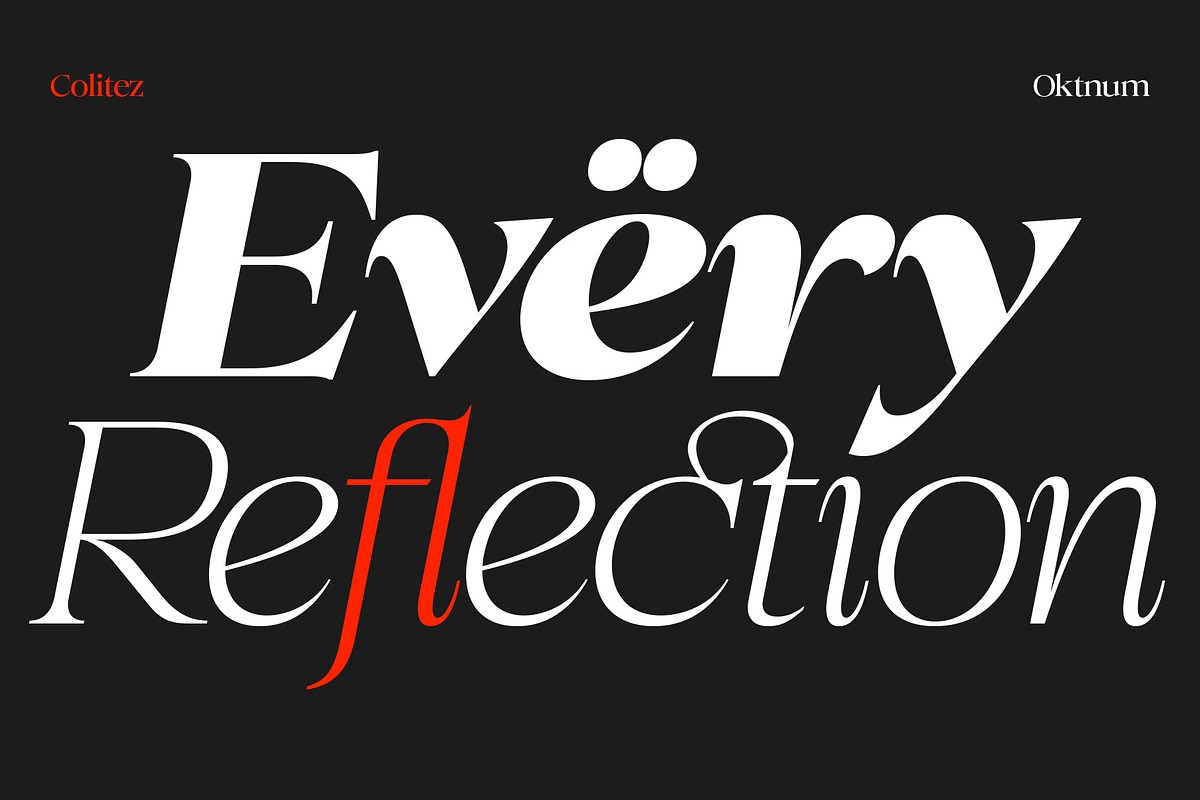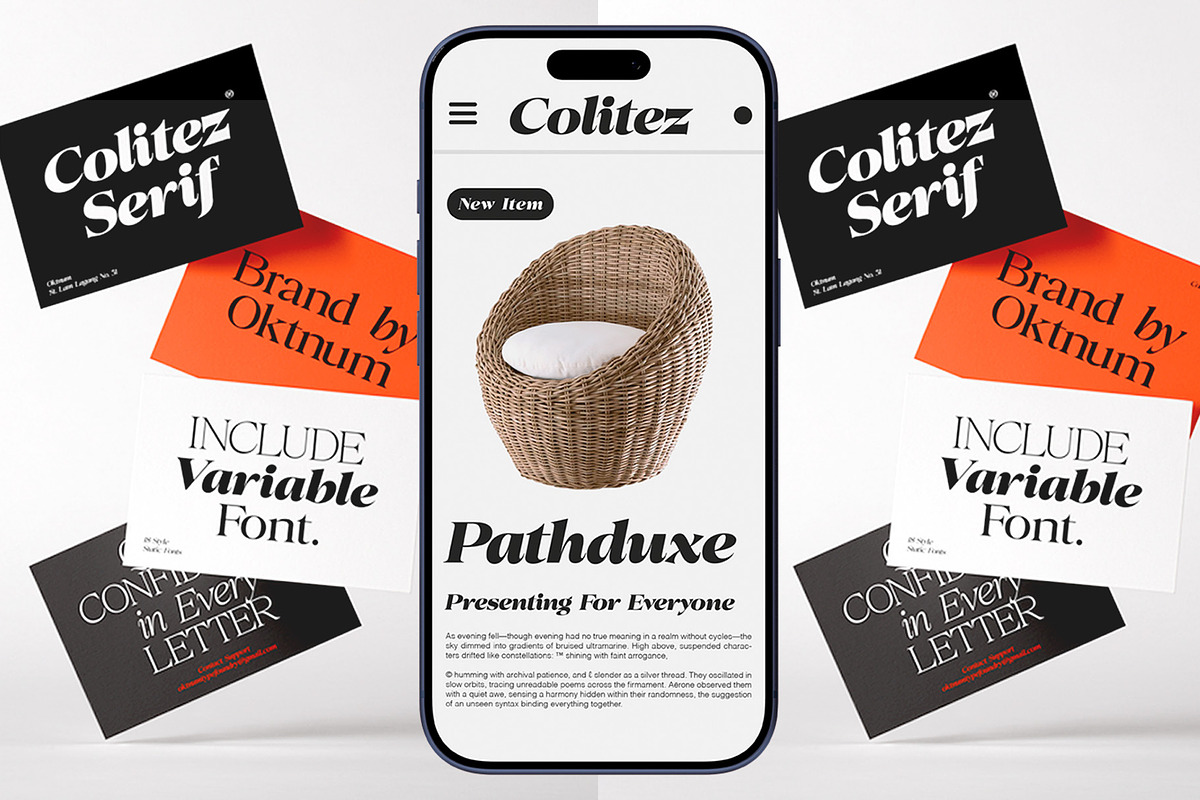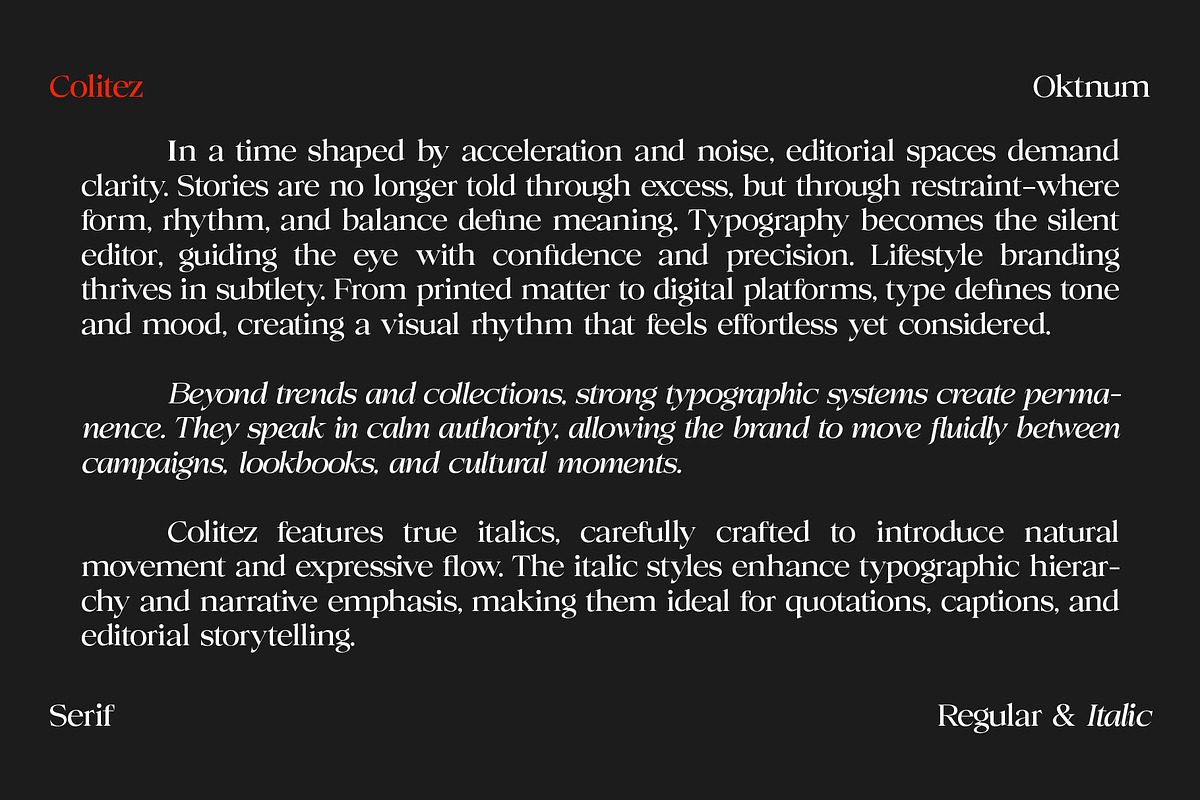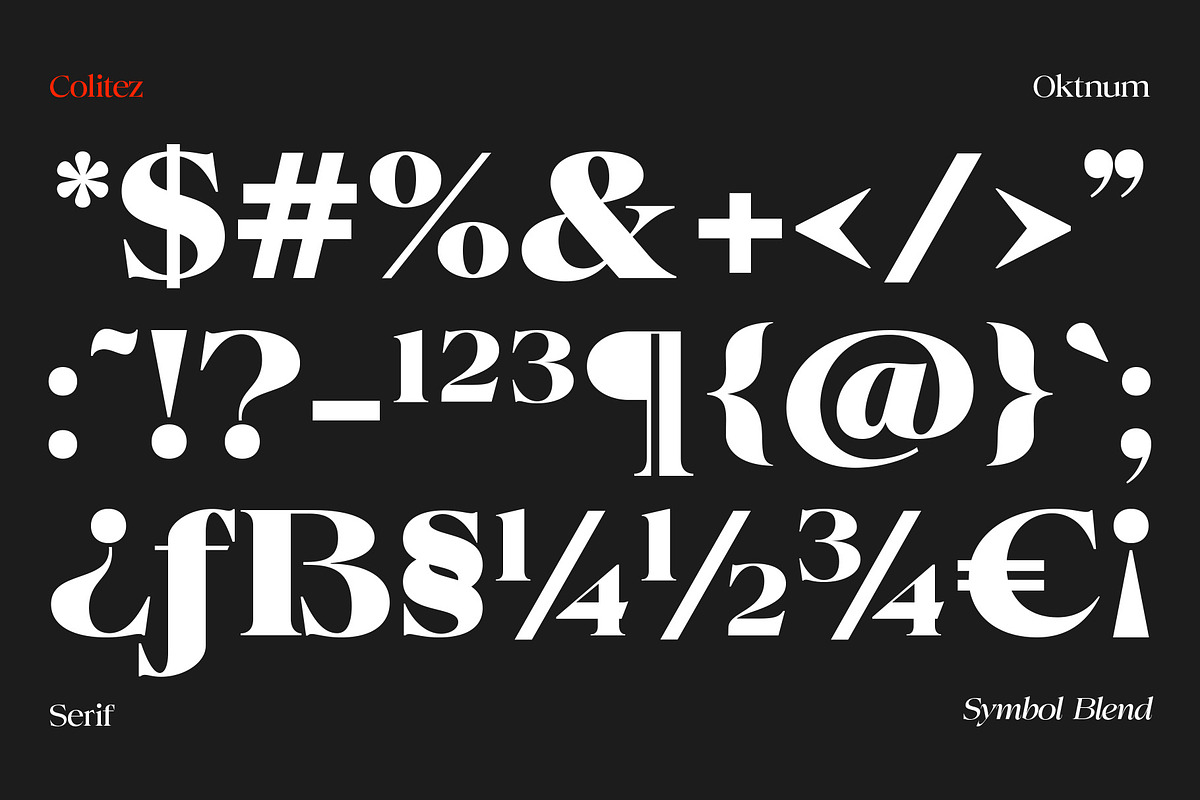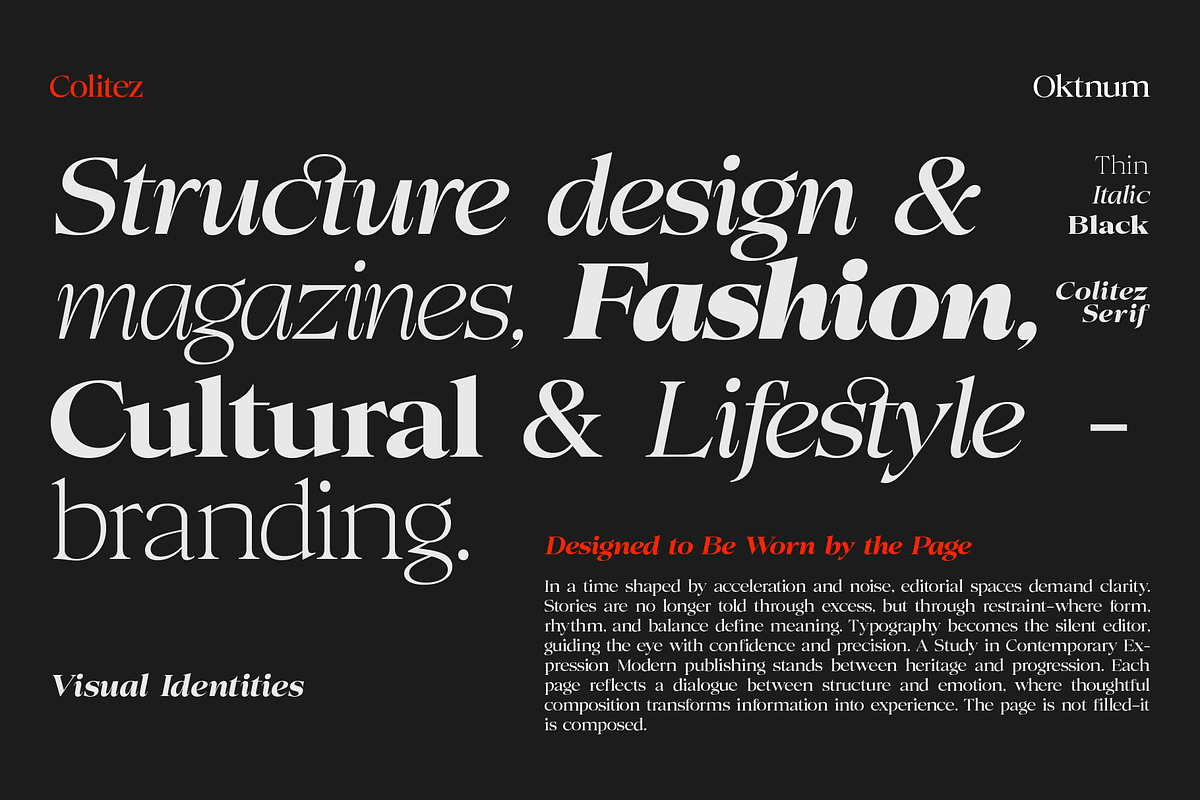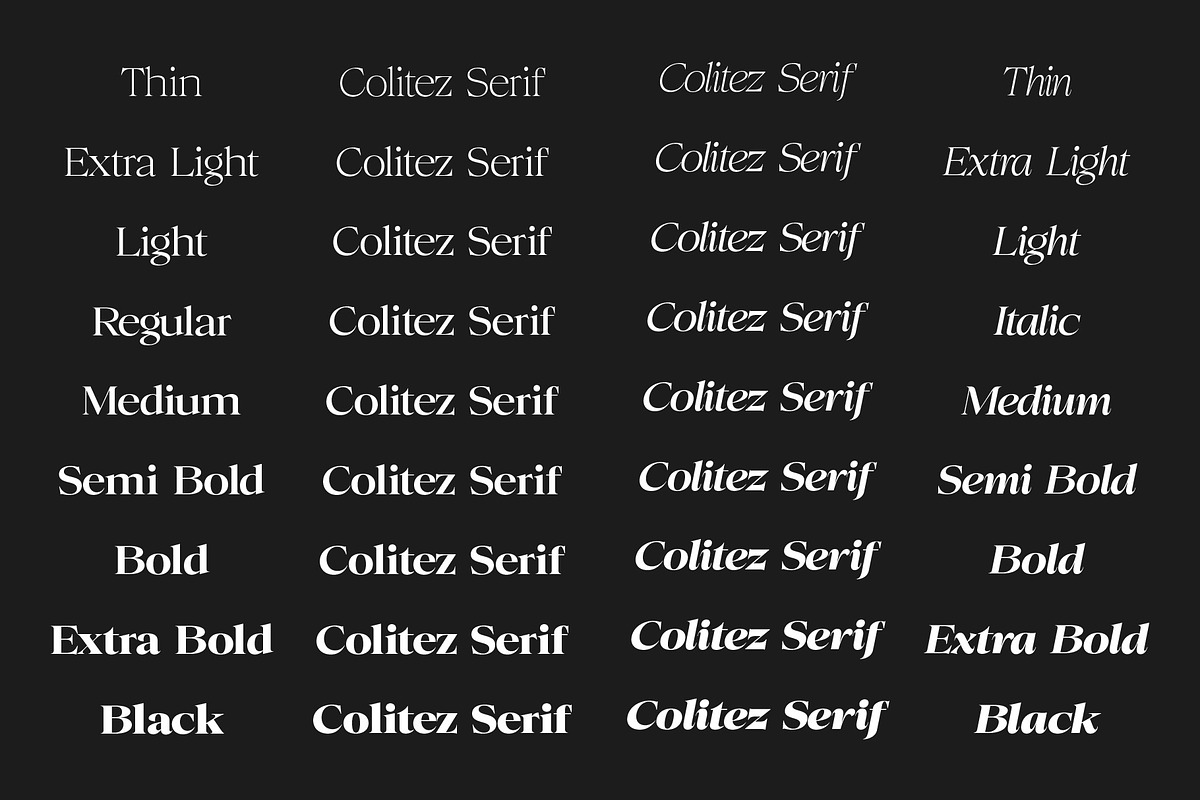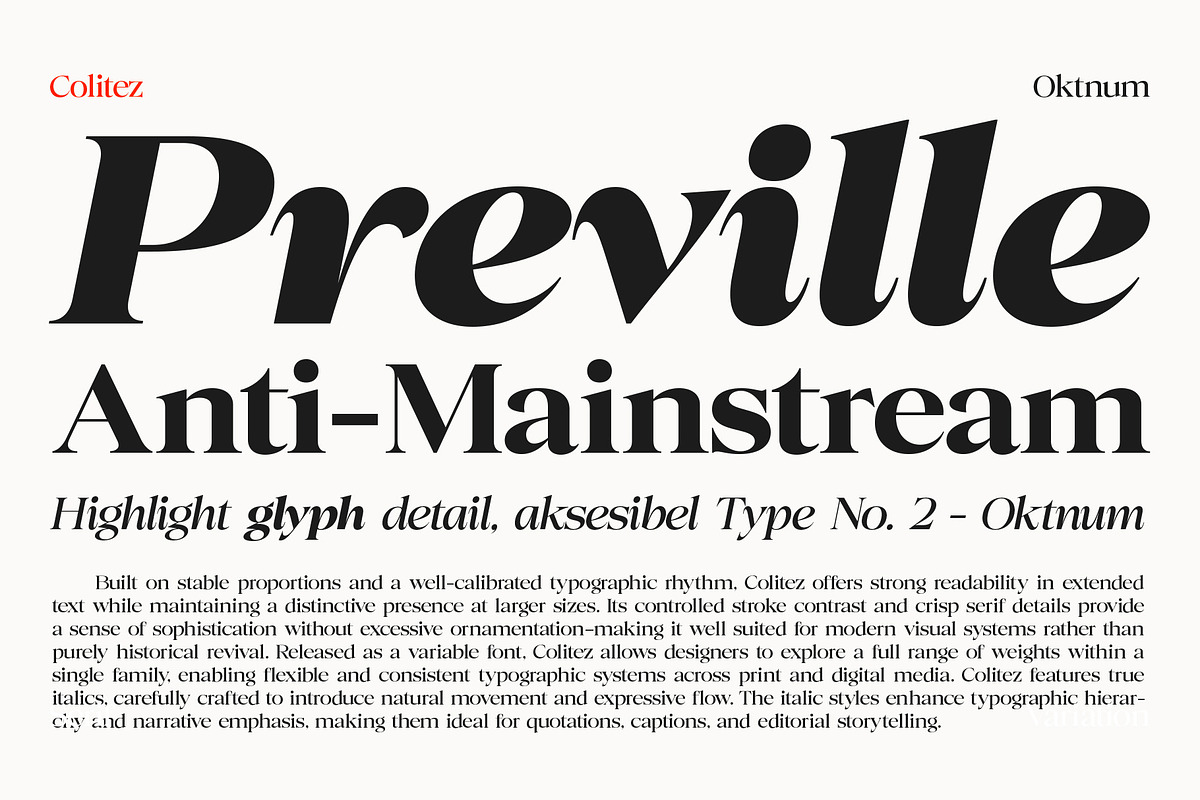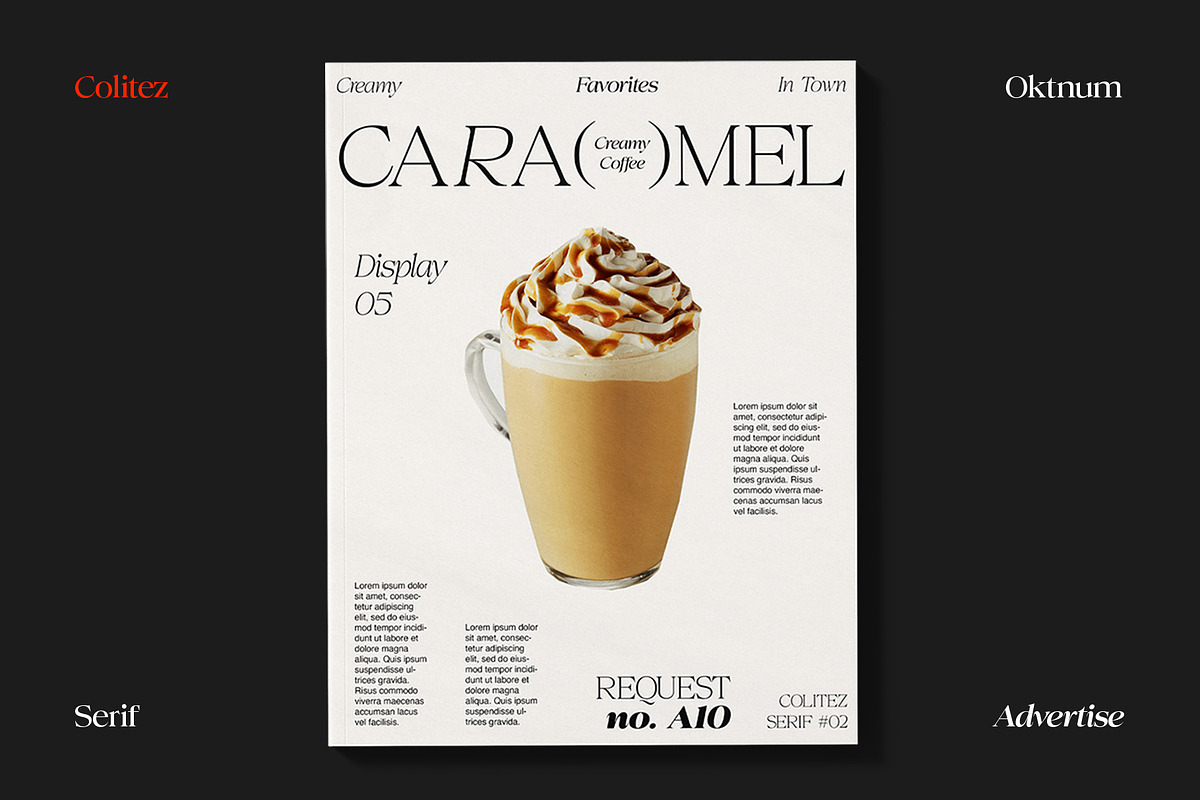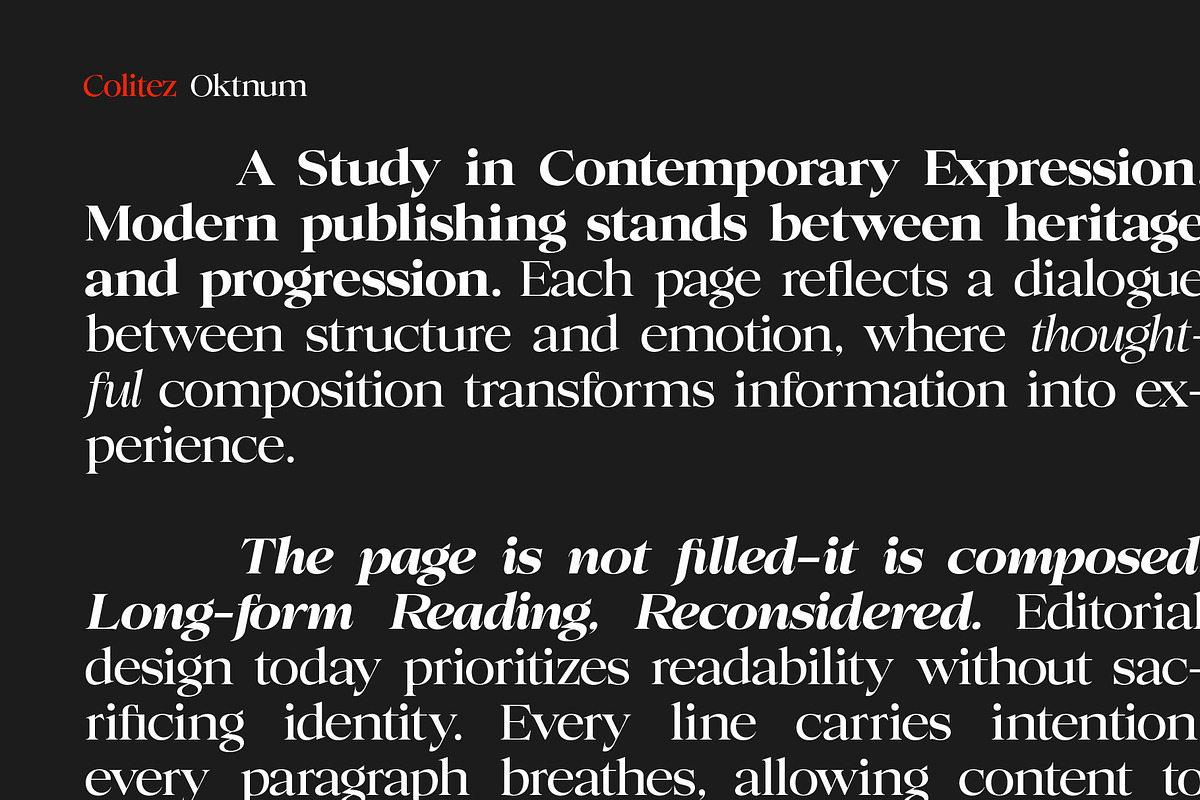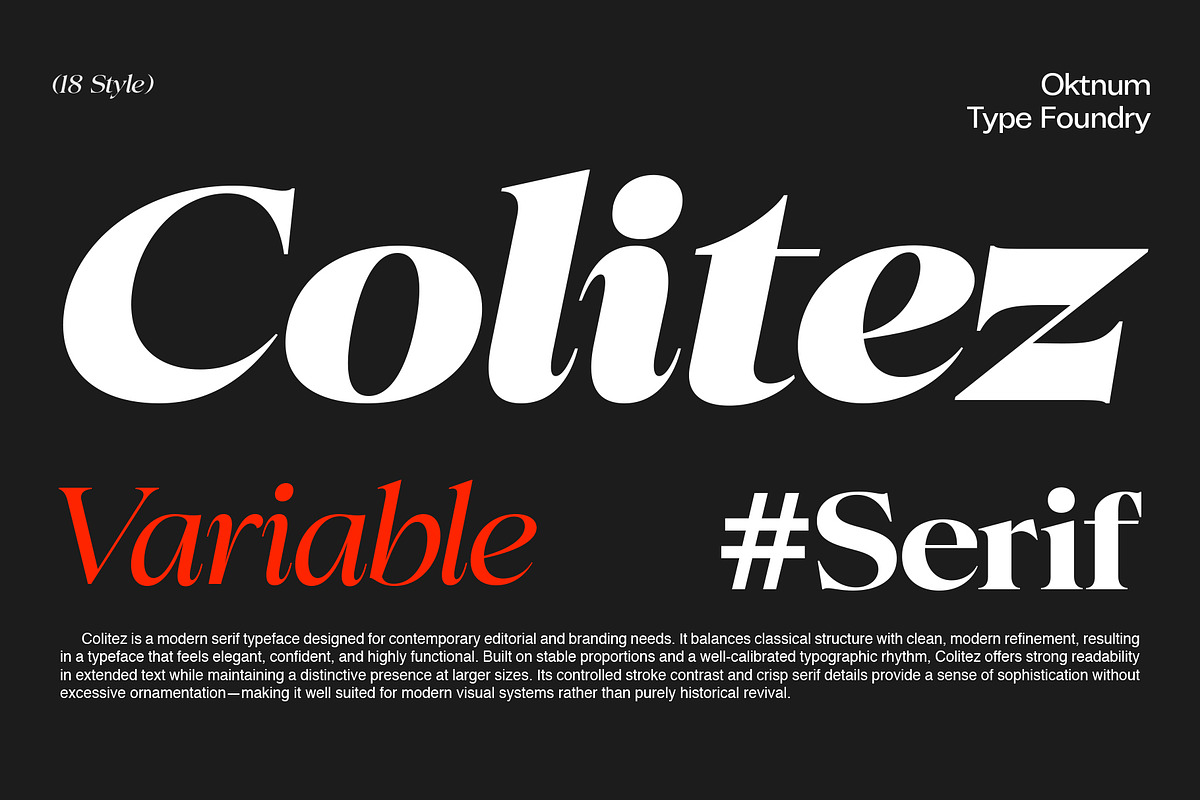
Colitez - Editorial Serif
Colitez is a modern serif typeface with 18 Static Fonts + 2 Variable Fonts, expertly crafted for contemporary editorial and branding applications. It harmoniously blends classical structure with clean, modern refinement, resulting in a typeface that exudes elegance, confidence, and functionality. Built on stable proportions and a well-calibrated typographic rhythm, Colitez ensures strong readability in extended text while maintaining a distinctive presence at larger sizes. Its controlled stroke contrast and crisp serif details impart sophistication without excessive ornamentation, making it ideal for modern visual systems rather than purely historical revivals.
Colitez features beautifully designed italics that introduce natural movement and expressive flow. These italic styles enhance typographic hierarchy and narrative emphasis, making them perfect for quotations, captions, and editorial storytelling. Released as a variable font, Colitez empowers designers to explore a comprehensive range of weights within a single family, facilitating flexible and consistent typographic systems across both print and digital media.